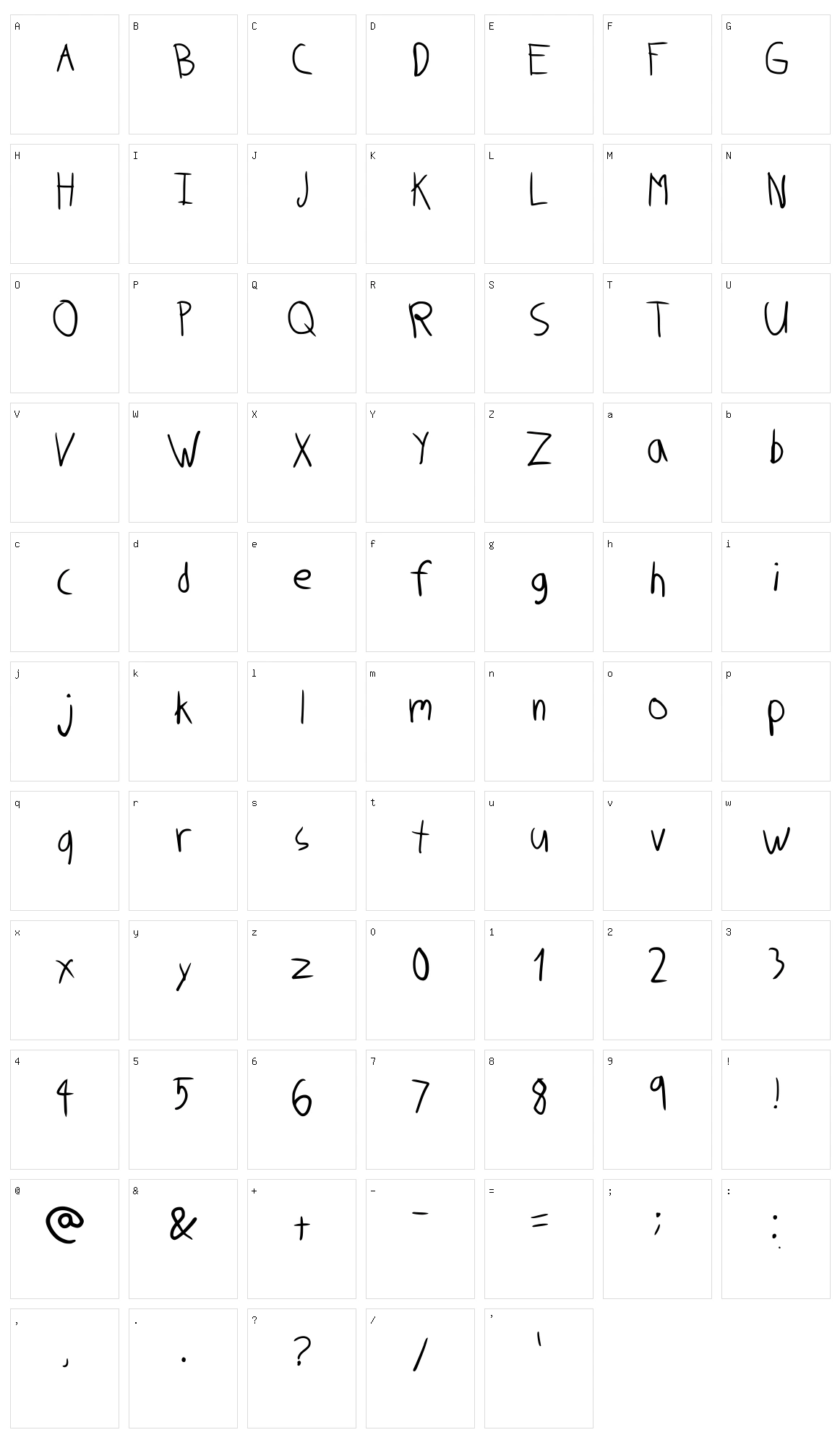
The free font Comical Power is carefully designed by Minato Dela Cruz, showcasing a thoughtful balance of creativity and usability and falls under the Script font style. When you download the ZIP file, it contains only 9.76 KB of font files, making it lightweight and quick to download. Please review the license details below to understand permitted usage and distribution rights. If license information is not available, we recommend using this font for personal projects only or contacting the author directly for commercial usage permissions.